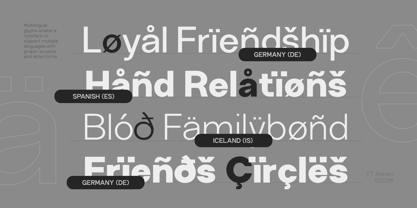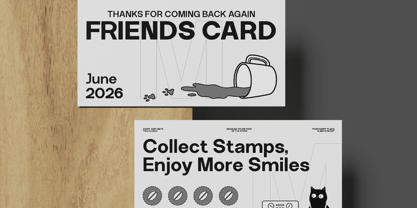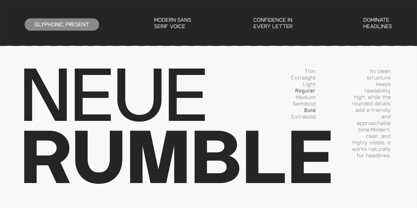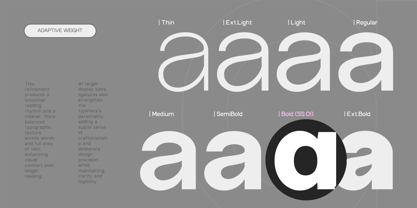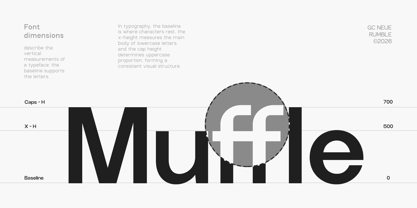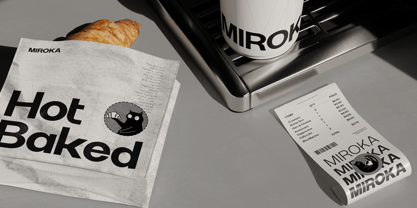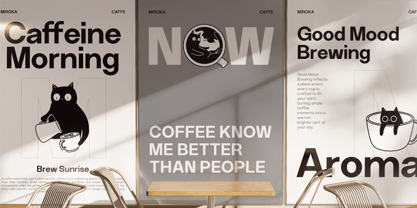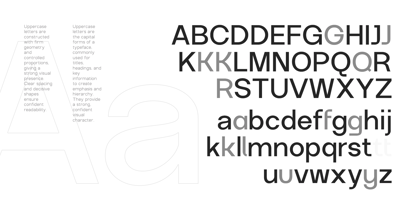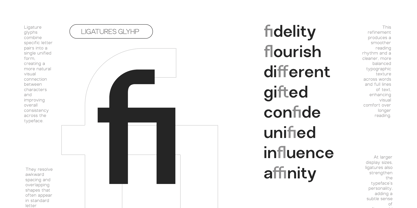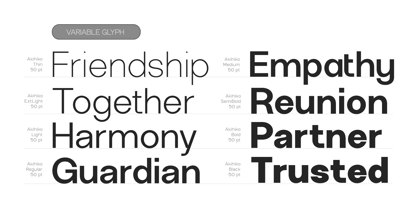
GC Neue Rumble
The GC Neue Rumble Font Family was designed by Muhammad Hafiizh Solana and published by Onyx Studio. GC Neue Rumble contains 8 styles and family package options. More about this family
GC Neue Rumble – Modern Elegant Sans is a contemporary sans serif typeface that blends refined elegance with modern clarity. Designed with balanced proportions and sophisticated detailing, Neue Rumble delivers a clean and graceful typographic voice that feels both timeless and forward-looking. With its smooth curves, subtle contrasts, and polished structure, GC Neue Rumble is crafted to perform beautifully across both digital and print media. The letterforms carry a sense of elegance without losing modern simplicity, making it ideal for branding, editorial layouts, luxury design, fashion visuals, and high-end creative projects. As a variable typeface, GC Neue Rumble offers flexible weight control, allowing designers to create refined typographic hierarchies and adapt seamlessly across different platforms and compositions. Its carefully designed forms ensure excellent readability while maintaining a distinctive and elegant character. Whether used for sophisticated headlines, minimalist layouts, or premium branding systems, GC Neue Rumble brings harmony, modern elegance, and subtle strength to your typography. Features: - Variable Font (Adjustable Weight Axis) - Uppercase & Lowercase - Numbers & Punctuation - Modern Elegant Sans Serif Construction - Smooth Curves & Refined Details - Multilingual Support (170+ Languages) Bring elegance, clarity, and modern refinement to your design with GC Neue Rumble.